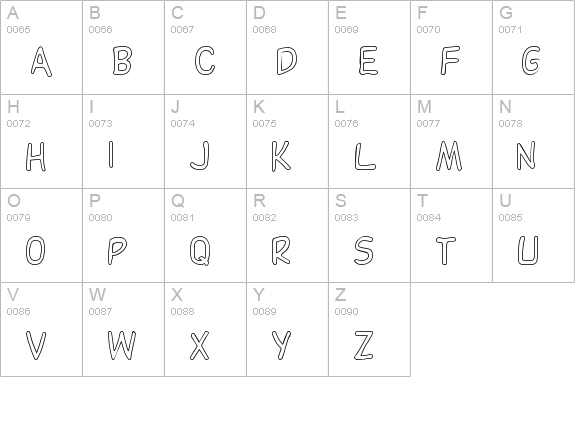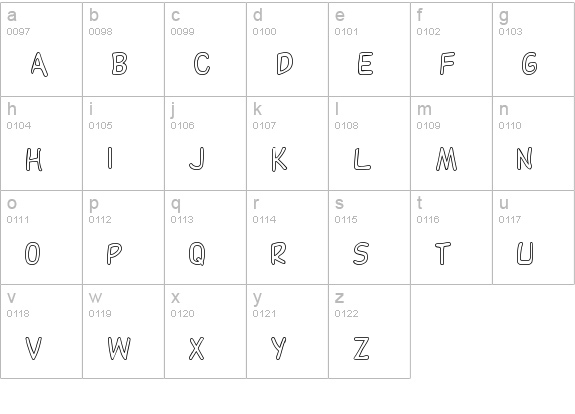
ResidenzOpen Font Details
ResidenzOpen is a stunning and versatile font that exudes elegance and sophistication. With its clean lines and classic design, this typeface is perfect for a wide range of projects, from branding to editorial design. The open, airy feel of ResidenzOpen gives it a modern look while maintaining a timeless appeal. One of the best things about ResidenzOpen is that it is completely free to download. You can easily access this beautiful font at FontsMarket.com, where you can explore its full potential and use it in your creative endeavors. Whether you are designing a website, creating a logo, or working on a print publication, ResidenzOpen is sure to elevate your project and make a lasting impression. Download ResidenzOpen today and unleash your creativity with this elegant and versatile font.